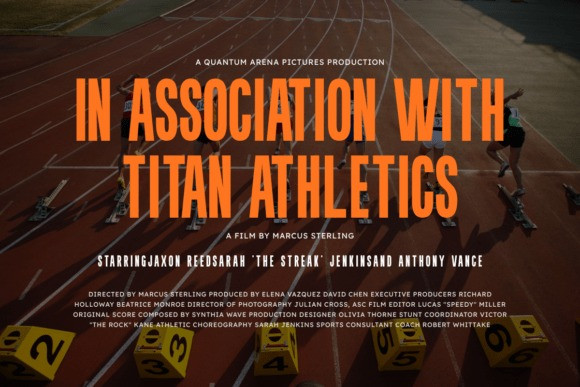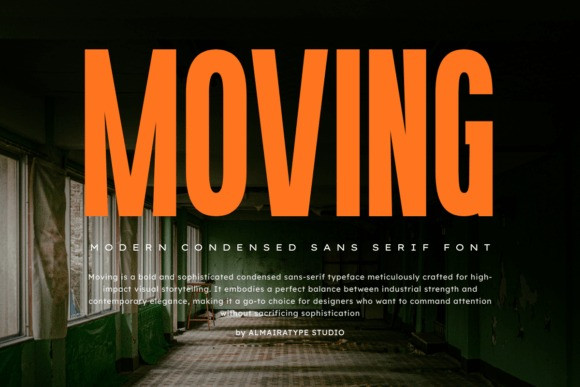
Moving Font
Moving Font is a bold and sophisticated modern condensed sans serif font meticulously crafted for high-impact visual storytelling. It embodies a perfect balance between industrial strength and contemporary elegance, making it a go-to choice for designers who want to command attention without sacrificing sophistication. This typeface features a tall, slender anatomy that excels in tight spaces, providing a sleek and powerful aesthetic to any creative project. Ideal for cinematic headers, sports branding, luxury automotive advertisements, and high-end editorial layouts, Moving delivers a clean and professional look that stands out. Whether you are working on minimalist logos, bold social media graphics, or large-scale posters, this font ensures maximum readability and a unique, stylish flair. Its precision-engineered characters make it an essential asset for your creative toolkit, allowing you to create designs that feel both timeless and cutting-edge. Elevate your brand’s identity with the distinct and commanding presence of the Moving typeface.